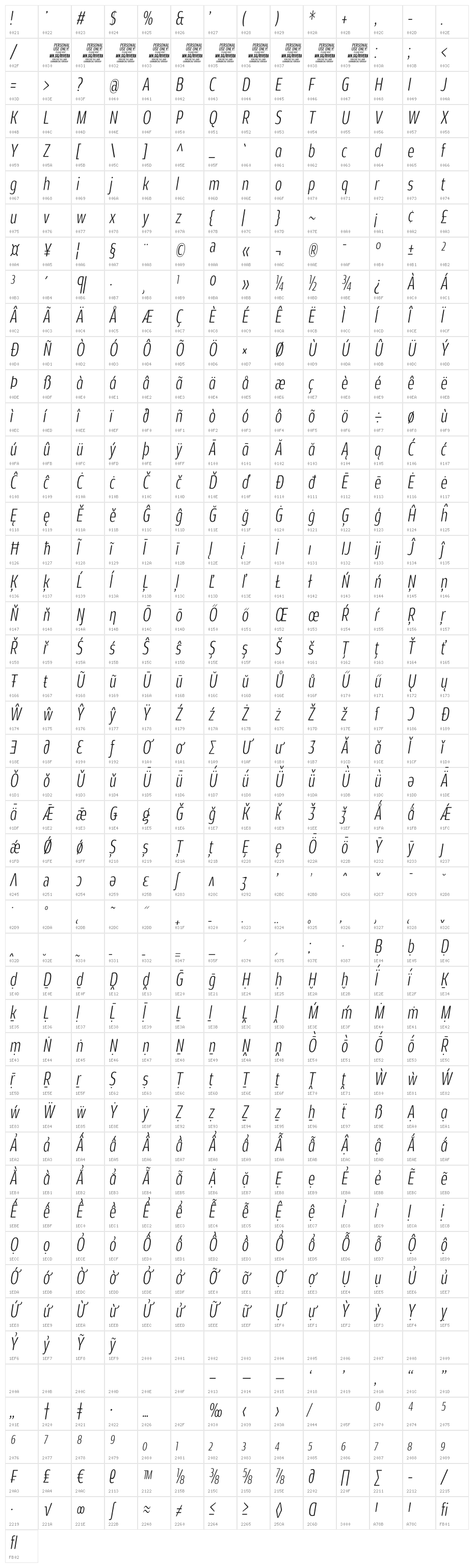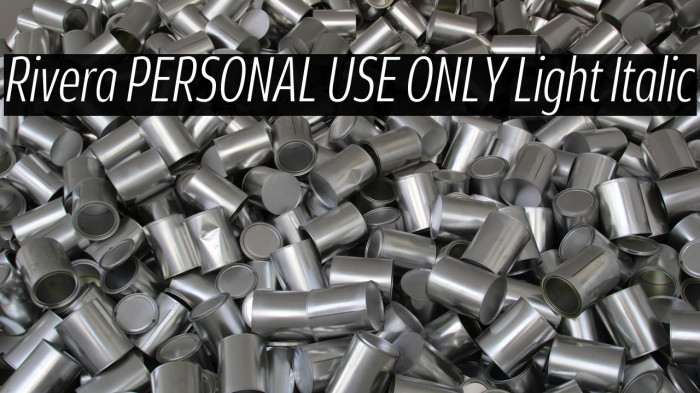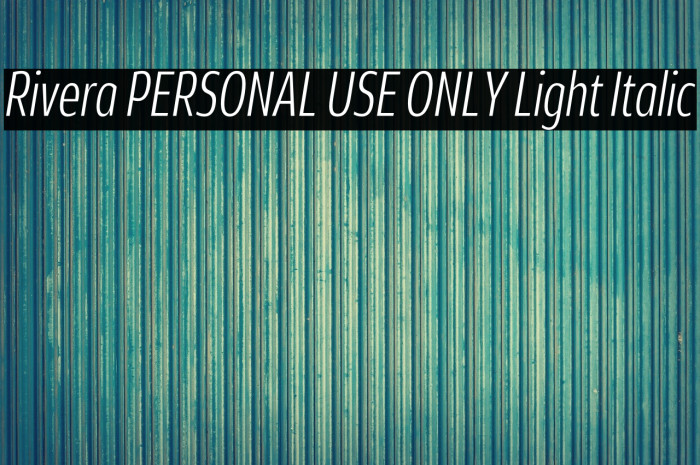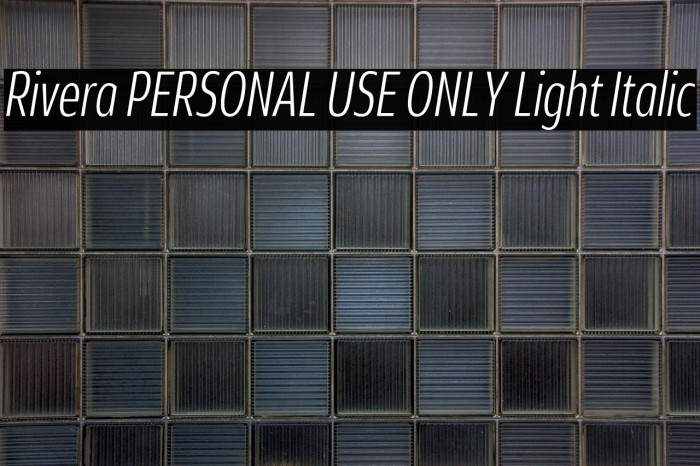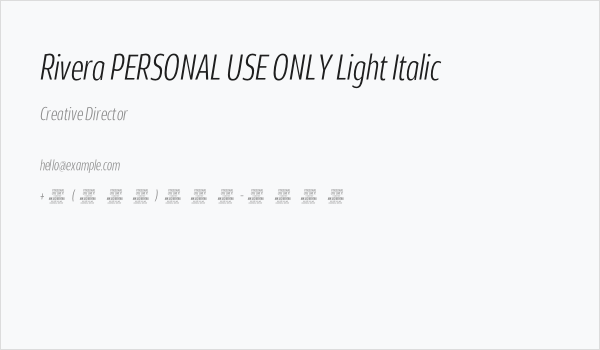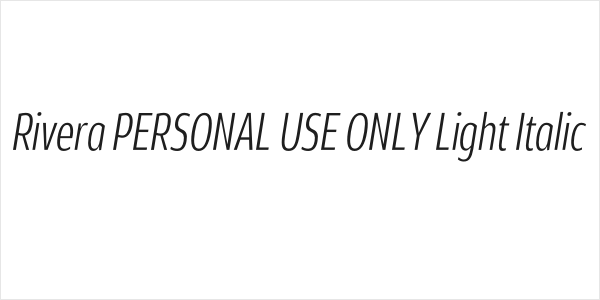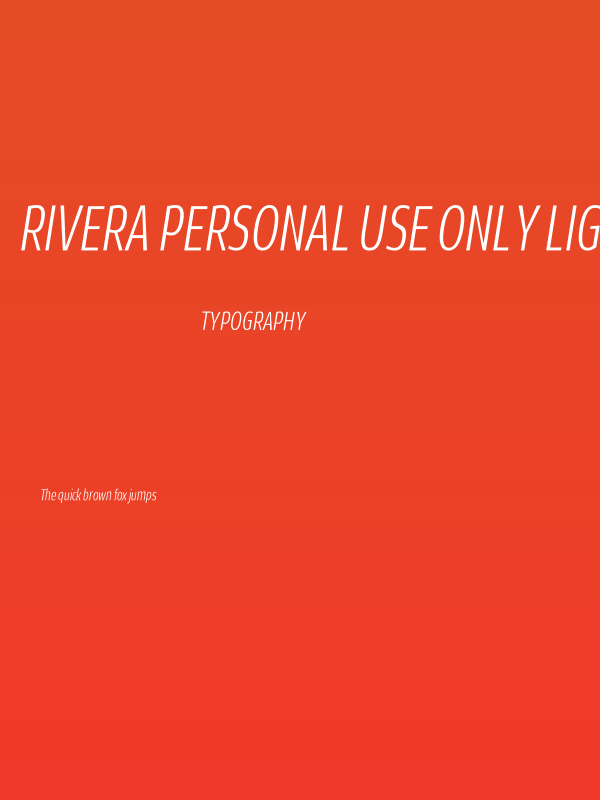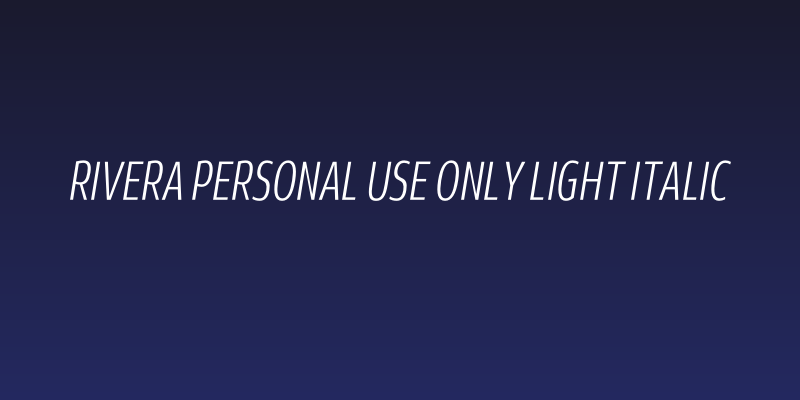
Rivera PERSONAL USE ONLY Light Italic Font
Rivera PERSONAL USE ONLY Light Italic Description
This font features a sleek and modern design with a light weight and italic style. The characters are elongated and slightly condensed, giving it a sophisticated and elegant appearance. The uppercase and lowercase letters maintain a consistent slant, enhancing the italic effect. The numerals and special characters are designed to complement the overall style, with a uniform stroke width that contributes to its clean and polished look. The font's minimal contrast in stroke thickness adds to its contemporary aesthetic, making it suitable for various design applications.